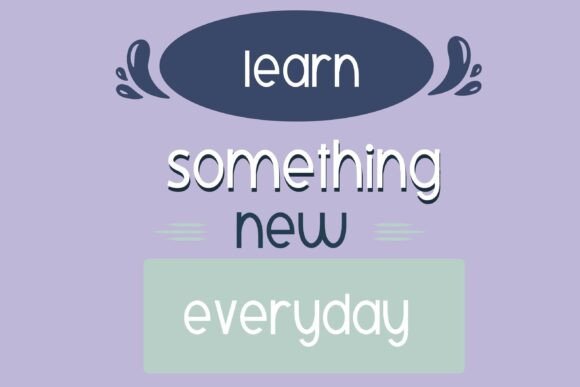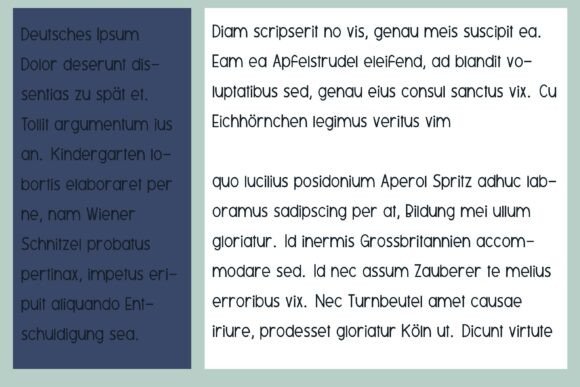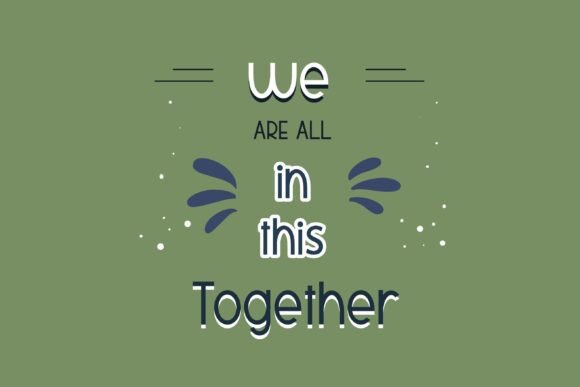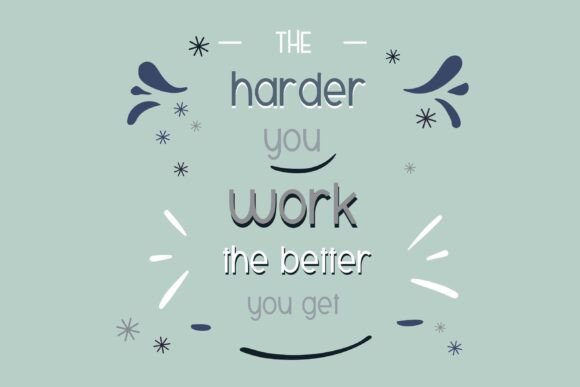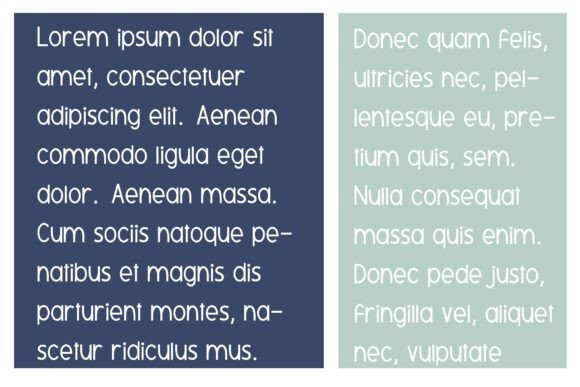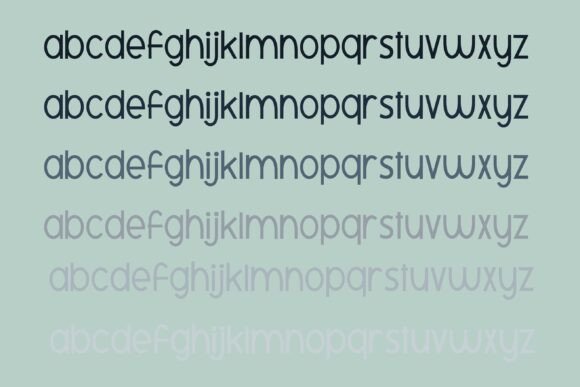
The Charm of Gertrude Font: A Hand-Crafted Sans Serif for Creative Projects
I still remember the time I was working on a wedding invitation project, and my client asked for a font that was both elegant and playful. I scoured through my font library, but nothing seemed to fit the bill. That’s when I stumbled upon Gertrude Font, a hand-crafted sans serif that has since become one of my go-to fonts for creative projects.
What Makes Gertrude Font Special?
Gertrude Font is a unique blend of modern sans serif and hand-crafted charm. Its irregularities and quirks give it a personal touch that’s perfect for invitations, greeting cards, and other creative projects. Here are some things I love about Gertrude Font:
- ✨ Unique and eye-catching design that’s sure to stand out
- 🎨 Versatile and can be used for both formal and informal projects
- 💻 Compatible with OpenType features, glyphs, and stylistic alternates
While Gertrude Font is an amazing font, it’s not without its quirks. Here are some things to keep in mind:
- 🤔 Some characters may appear a bit inconsistent in terms of width and spacing
- ⚠️ Not suitable for very long blocks of text, as it can be a bit tiring to read
The Story Behind Gertrude Font
Gertrude Font was designed by a young type designer who wanted to create a font that was both modern and personal. Inspired by the imperfections of handwriting, she crafted a font that was unique, yet highly legible. The result is a font that’s perfect for creative projects that require a touch of personality.
| Font Name | Gertrude Font |
| Author | Illustration Ink |
| What is Gertrude Font? | Gertrude Font is a hand-crafted sans serif font designed for creative projects. |
| Is Gertrude Font suitable for long blocks of text? | No, Gertrude Font is best used for short to medium-length text, as it can be a bit tiring to read in long blocks. |
| Is Gertrude Font compatible with OpenType features? | Yes, Gertrude Font is fully compatible with OpenType features, glyphs, and stylistic alternates. |